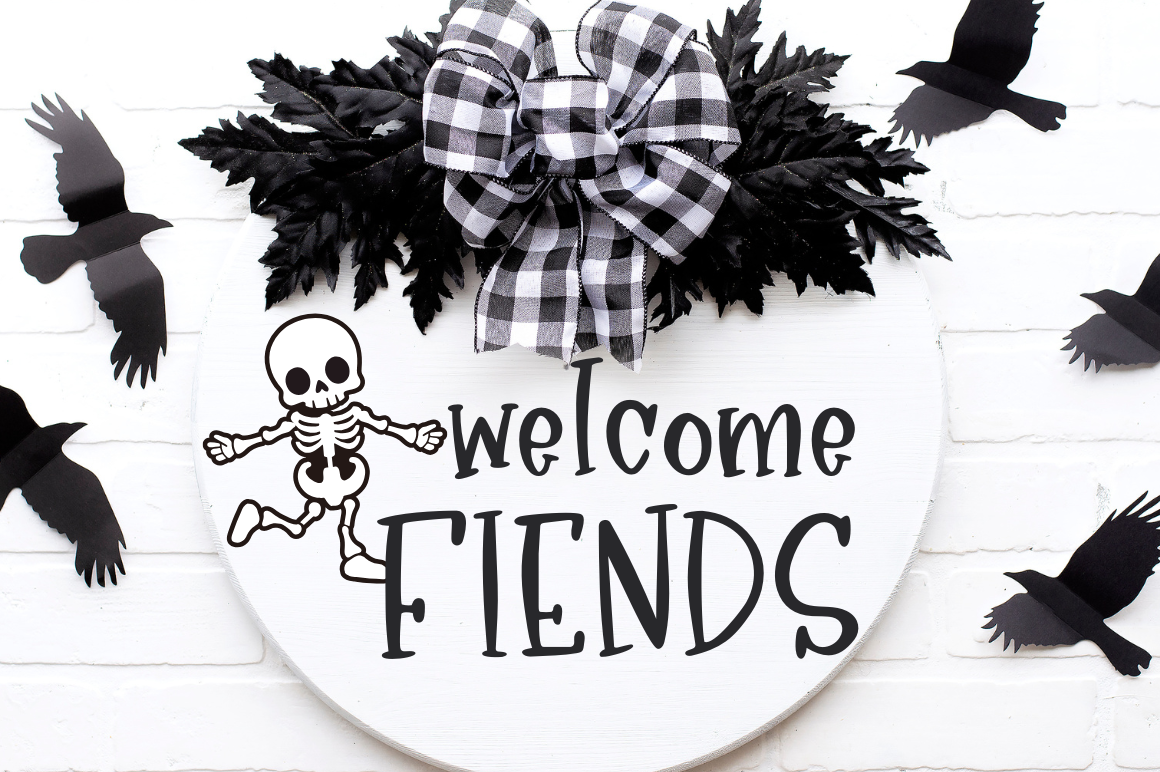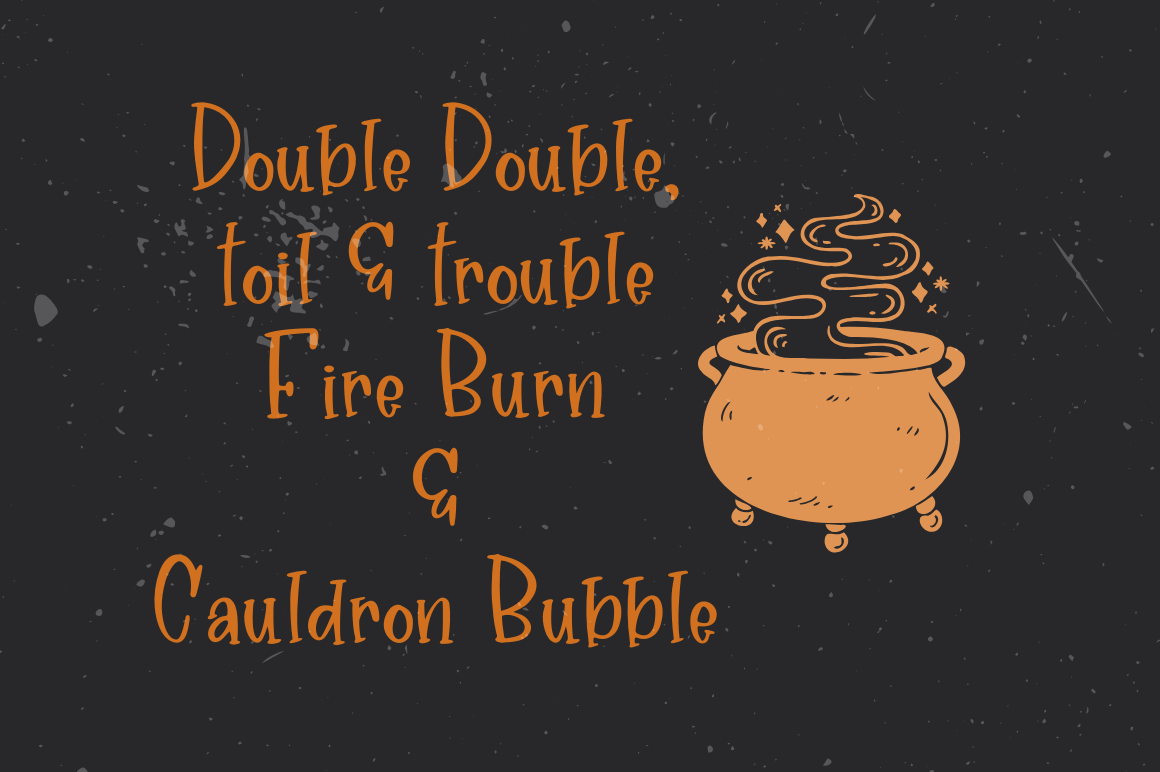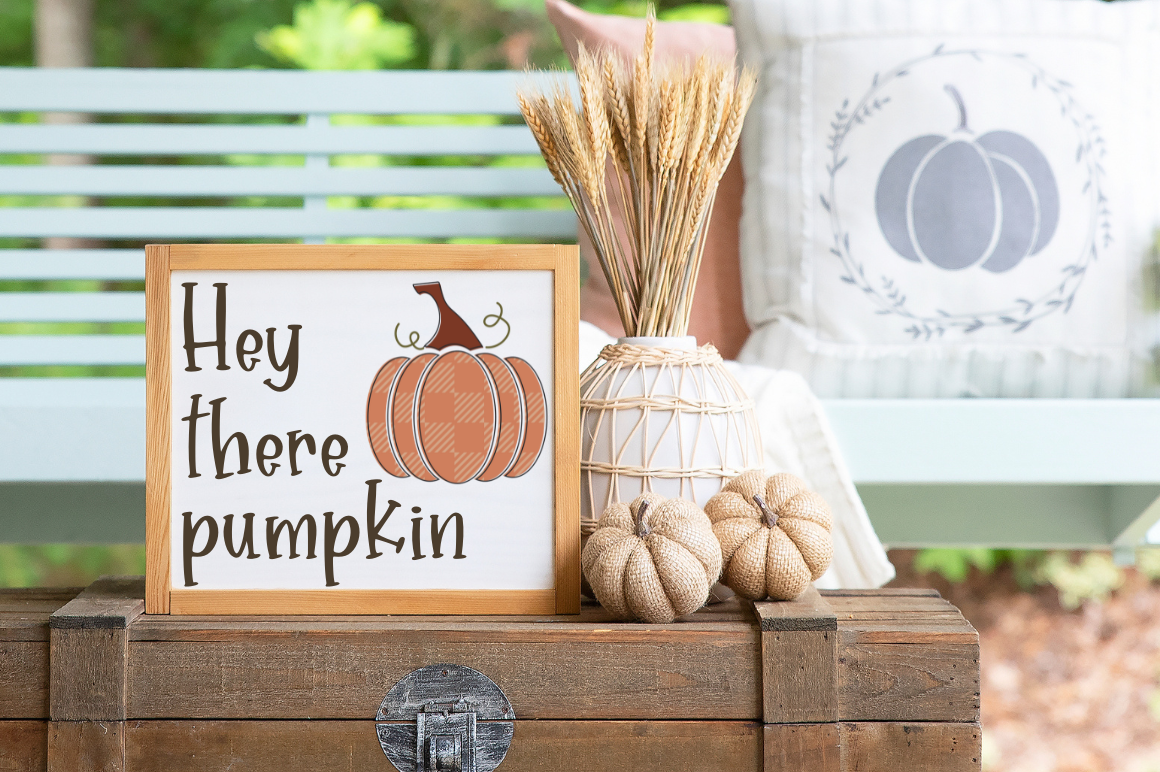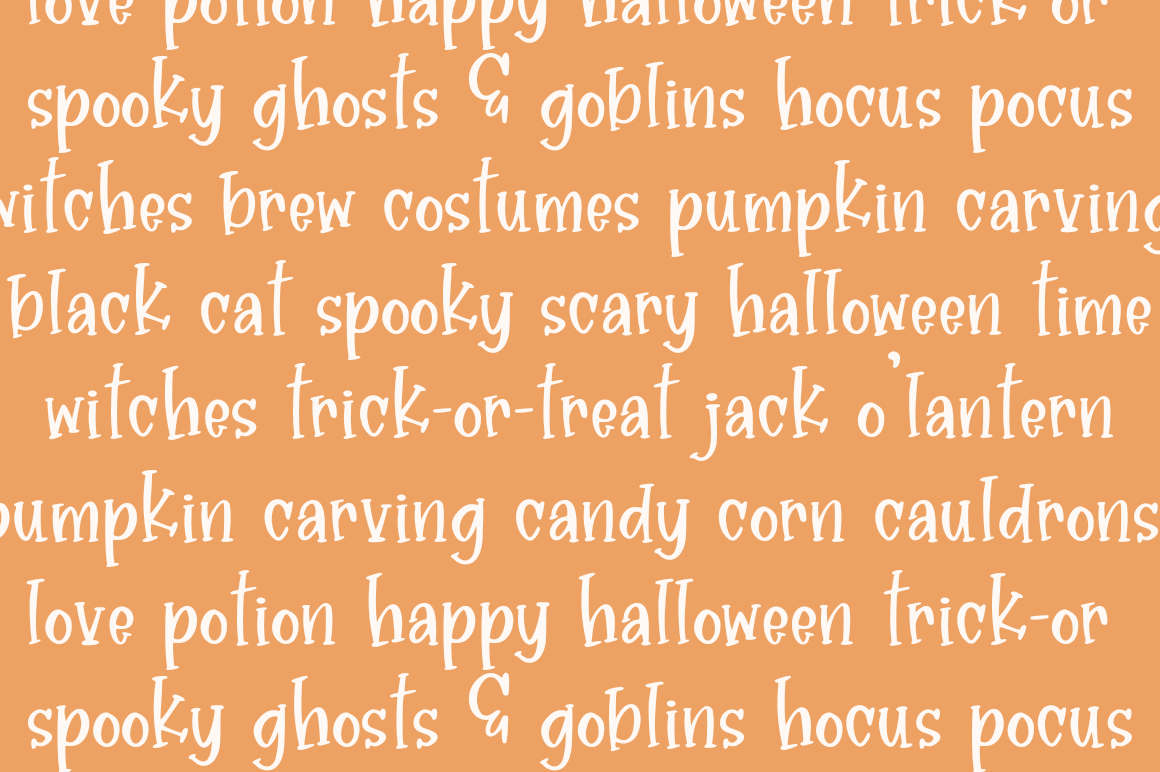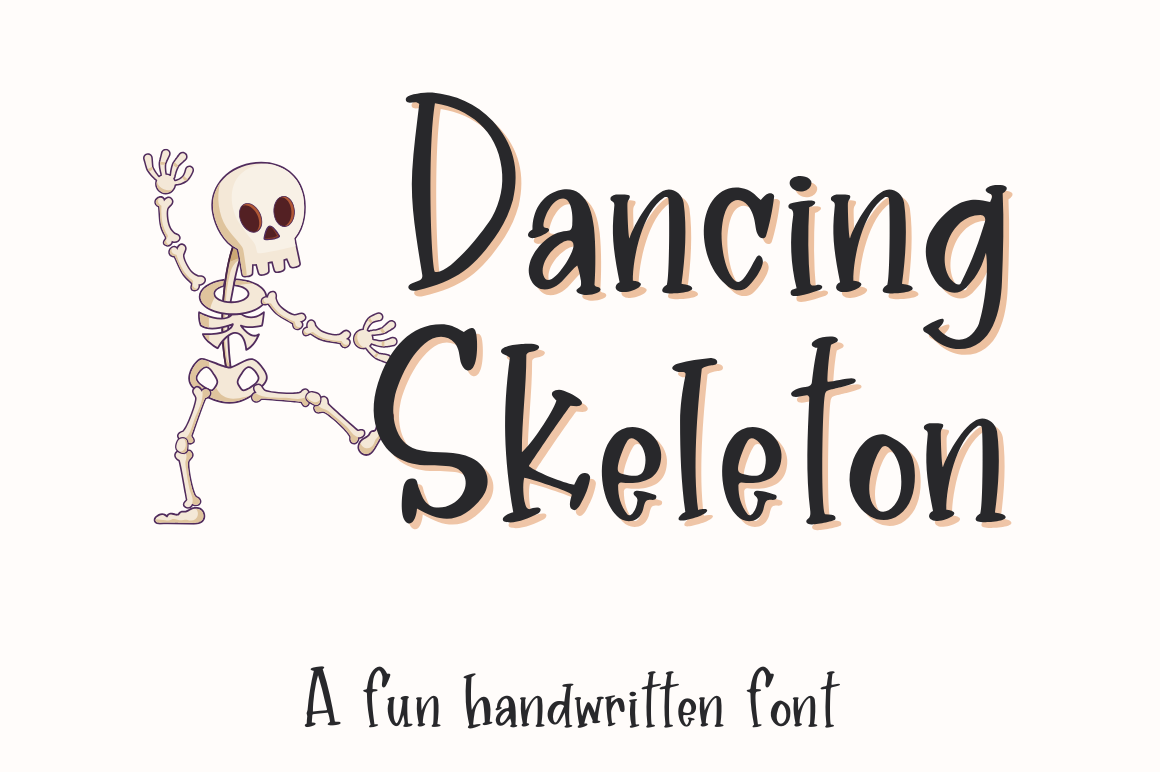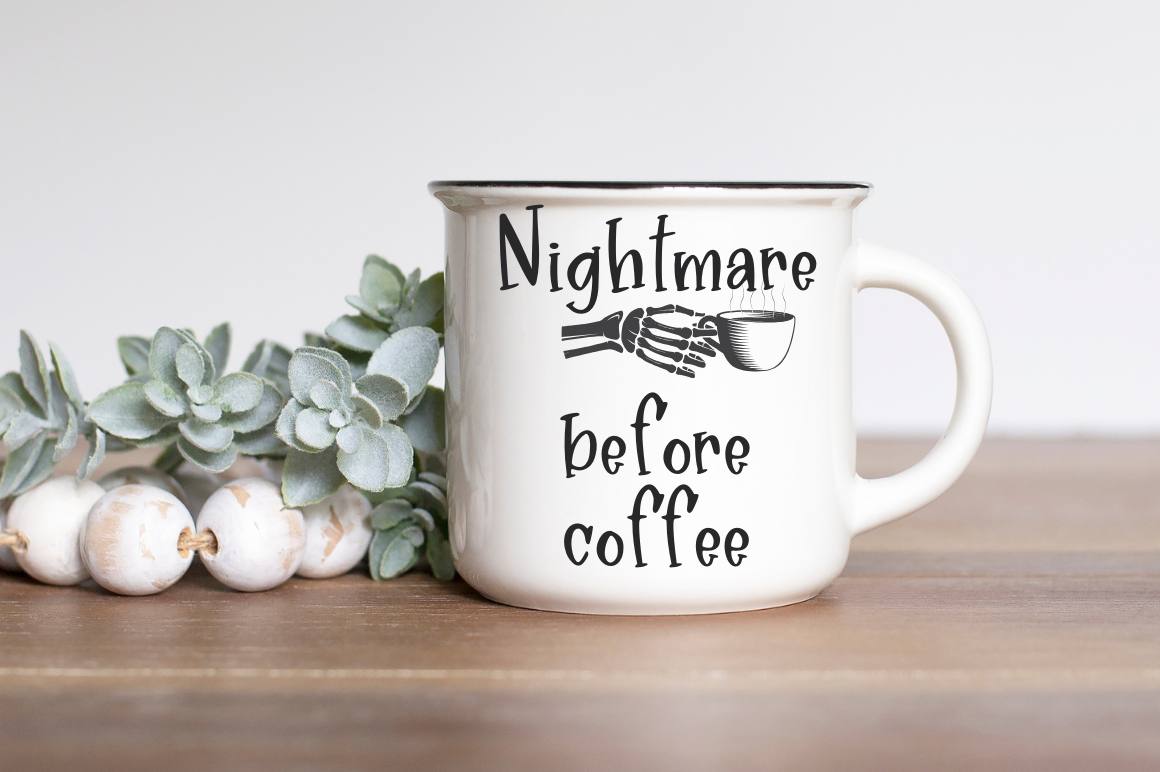
Dancing Skeleton, Fun Halloween Font
Introducing Dancing Skeletons, our wicked cute Halloween Handwritten font, perfect for all your spooky projects! This meticulously crafted handwritten font captures the essence of Halloween with its playful yet eerie vibe. Whether you're creating invitations, banners, or decorations, our Handwritten Font will add a touch of magic to your designs. Compatible with Cricut and ideal for SVG files, this versatile font brings your Halloween-themed crafts to life. Its fun handwriting style is sure to make your projects stand out. Get creative with our exclusive Cricut Fonts and let your imagination run wild this Halloween season. Embrace the spirit of the holiday with our remarkable Halloween Font!   What's Included: ------------------------------------------------------------------------------------ One Zip File containing: Dancing Skeleton OTF Dancing Skeleton TTF Dancing Skeleton WOFF ------------------------------------------------------------------------------------